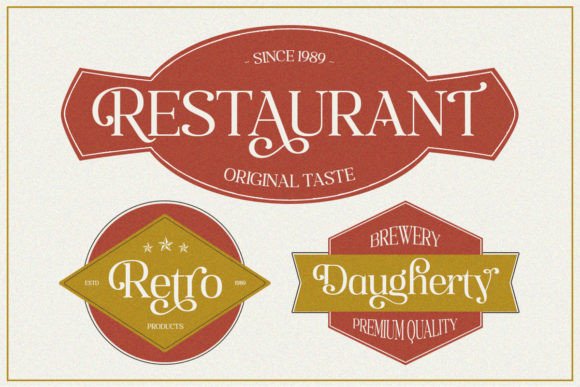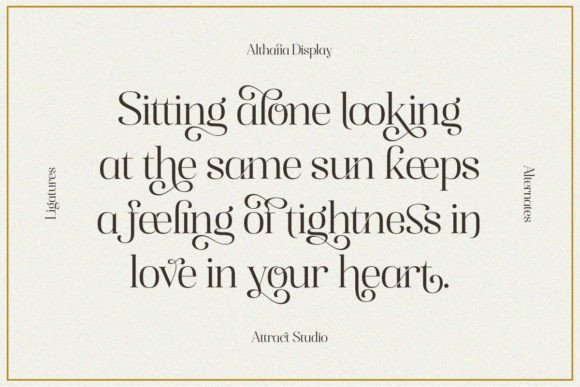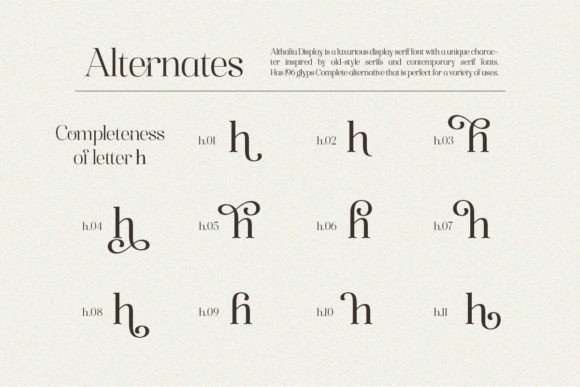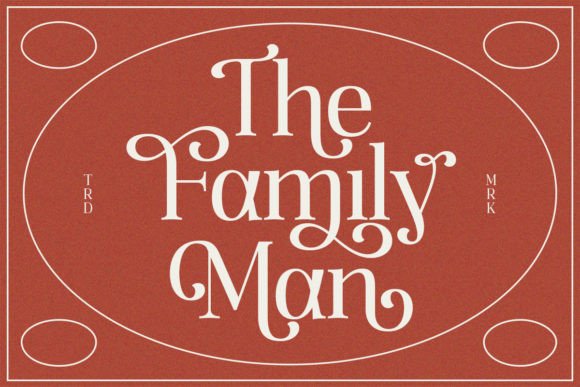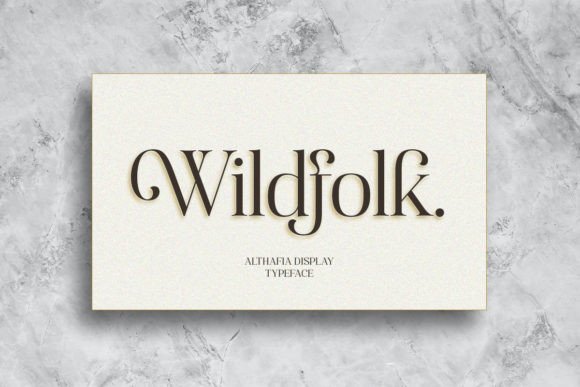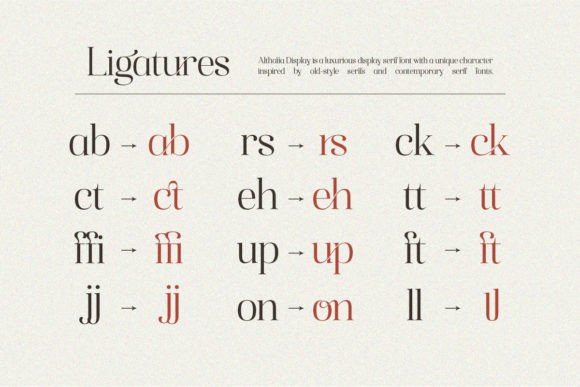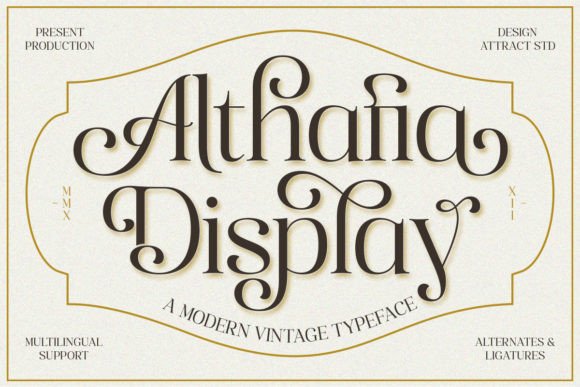
The Designer’s Delight: Althafia Display Font
I’ll never forget the time I was working on a project for a high-end fashion brand. I had spent hours agonizing over the design, but something was missing. The text just didn’t feel elegant enough. I scoured the internet for the perfect font, but nothing seemed quite right. That was until I stumbled upon Althafia Display. This fancy, aesthetically pleasing display font has been a game-changer for my designs ever since.
I’ve had the pleasure of working with Althafia Display for a while now, and I must say, it’s a stunning addition to any design project. Here are a few things I love about this font:
- ✨ Sophisticated and charming: Althafia Display has a certain je ne sais quoi that adds a touch of elegance to any design.
- ✅ Modern and fresh: This font is perfect for designers looking for a modern, yet classic look.
- 🔥 PUA encoded: The font is PUA encoded, which means you can access all the glyphs and ligatures with ease!
- 🤔 Limited use cases: Althafia Display is a display font, so it’s best used for headlines, titles, and short text snippets.
- ⚠️ Not suitable for body text: Due to its ornate nature, this font can be difficult to read in large blocks of text.
The Story Behind Althafia Display
While the true story behind Althafia Display remains a mystery, it’s clear that the designer had a passion for elegance and sophistication. The font’s creator likely drew inspiration from classic typography, infusing it with modern flair. Whether or not the designer had a specific use case in mind, Althafia Display has proven itself to be a versatile and stunning addition to any design project.
| Font Name | Althafia Display Font |
| Author | Attract Studio |
| What is Althafia Display? | Althafia Display is a fancy, aesthetically pleasing display font perfect for creating elegant, chic designs. |
| Is Althafia Display PUA encoded? | Yes, Althafia Display is PUA encoded, making it easy to access all glyphs and ligatures. |
| Can I use Althafia Display for body text? | No, Althafia Display is best suited for headlines, titles, and short text snippets. It’s not recommended for body text due to its ornate nature. |